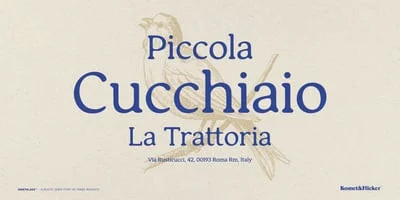
Northlake Font
Northlake Font is serenely designed for lakeside resort branding, Nordic tourism campaigns, cabin rental communications, fishing lodge materials, northern wilderness guides, lake house real estate, Canadian tourism marketing, and tranquil retreat center presentations. This peaceful typeface excels in environments requiring northern tranquility and lakeside authenticity, making it perfect for hospitality brands, tourism organizations, outdoor recreation companies, and any business needing to communicate northern serenity and pristine lake environments through distinctive typography.
What makes Northlake Font so exciting is its exceptional ability to capture the pristine beauty of northern lake environments and the tranquil sophistication of lakeside living that instantly evokes crystal-clear waters and peaceful forest reflections. The font features harmoniously crafted letterforms with flowing curves and northern proportions that reflect the gentle movement of lake waters and the serene atmosphere of untouched northern wilderness. Its tranquil construction and lakeside character make it incredibly effective for brands wanting to communicate peace, natural beauty, and northern authenticity while appealing to audiences seeking lakeside escape and northern wilderness experiences.
Northlake Font typically includes multiple weights and styles such as Light, Regular, Medium, and Bold, often accompanied by flowing variants that enhance its water-inspired movement. The font family frequently features additional character sets including nature symbols, water icons, and northern glyphs that enhance its lakeside appeal. Each weight maintains the font's distinctive peaceful character while offering different levels of tranquil emphasis, providing designers with comprehensive tools for creating serene brand identities and northern-focused communication materials.
Tourism professionals will discover that Northlake Font delivers outstanding performance in both traditional hospitality applications and contemporary eco-tourism marketing materials requiring northern authenticity. The font's carefully crafted character set includes nature-appropriate letterforms, water symbols, and northern elements essential for resort branding, tourism marketing, and outdoor recreation communications. Its peaceful design makes it particularly effective for lake resorts, fishing lodges, northern tourism boards, and tranquility-oriented marketing campaigns requiring authentic lakeside presence.
The thoughtful attention to water proportions and serene spacing ensures that Northlake Font maintains excellent readability while delivering maximum peaceful impact. Its nature-inspired design language makes it particularly effective for hospitality applications, northern tourism, lake recreation, and wellness communications. The font's tranquil appearance creates strong environmental connections while remaining highly functional for projects requiring clear communication to nature enthusiasts and northern wilderness seekers.
For designers seeking a typeface that embodies northern tranquility with lakeside authenticity, Northlake Font represents an exceptional choice that will refresh any project with its distinctive serenity and northern character.